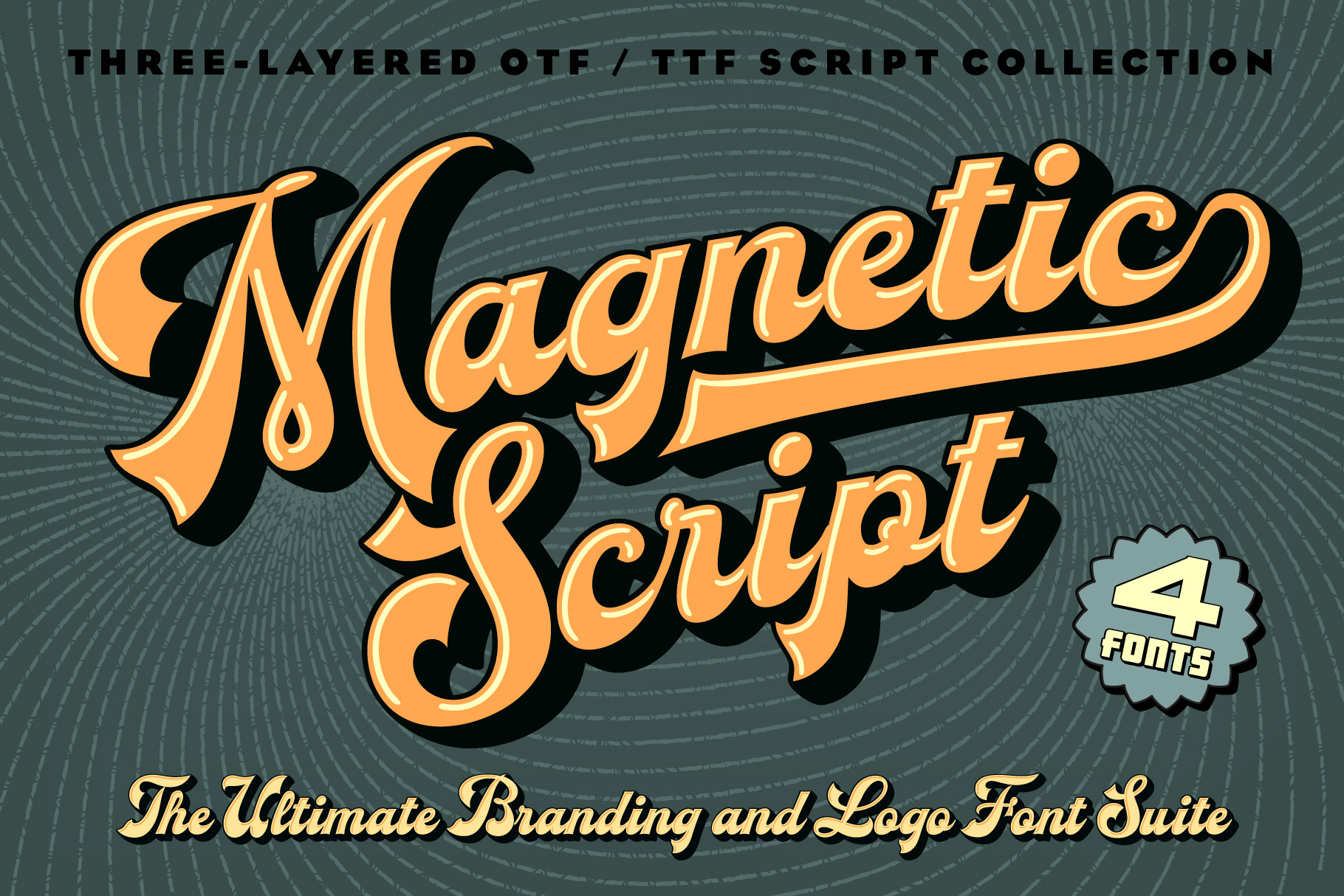
Magnetic Script Font Family
Introducing Magnetic Script, a bold stylized font family that is not only eye-catching and assertive, but highly legible at both display and text sizes. The heart of this font's usefulness is the three-layer setup that allows you to quickly copy a text block twice, then reassign the main layer, the extruded shadow underlayer, and the top highlight layer to three different colors.
Magnetic Script is massively versatile, and appropriate for many uses including university / collegiate logos, sports team logos, graphics for motorcycle clubs, automotive rallies, microbrewery labels, and vintage & retro styles of all kinds. It's the ultimate branding and logo design font suite.